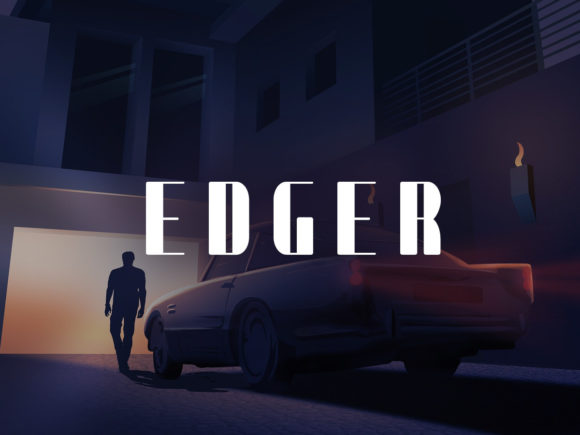
Welcome to the realm of typography, where letters dance and words come alive. Allow us to introduce you to Edger Font, a display font that's poised to revolutionize your creative endeavors. Crafted by the visionary designers at Design Stag, Edger Font is a masterpiece that demands attention and ignites imagination.
Edger Font: The Epitome of Modernity and Style for Heading in PPT
Picture this: a captivating PowerPoint presentation that leaves your audience spellbound. With Edger Font gracing your slides, you'll command attention from the very first letter. Its chunky and prominent letters exude an air of sophistication that instantly elevates your content. Whether you're presenting business strategies, academic research, or captivating travelogues, Edger Font ensures your message hits home with undeniable impact.
Unleash Your Creativity with Edger Font
Edger Font is more than just a font; it's an artistic playground where your creativity can run wild. Whether you're a seasoned designer or just starting your creative journey, Edger Font empowers you to transform your ideas into stunning visuals. Create logos that resonate, craft social media posts that captivate, and design marketing materials that leave a lasting impression. With Edger Font as your creative companion, the possibilities are limitless.
Make a Bold Statement with Edger Font
In a world saturated with visual noise, standing out requires boldness and originality. Edger Font arms you with the tools to make a statement that reverberates. Its striking presence breathes life into your designs, ensuring your message cuts through the clutter and leaves an indelible mark. Whether you're creating posters, flyers, or eye-catching social media graphics, Edger Font guarantees you'll leave a lasting impression.
Experience Typographic Excellence with Edger Font
Edger Font isn't just a font; it's an experience that elevates your designs to new heights. Its carefully crafted letters, meticulously designed curves, and unwavering attention to detail create a visual symphony that captivates the senses. With Edger Font, you'll discover a world of typographic excellence, where every character tells a story and every word carries weight. Prepare to embark on a creative journey like no other, where your designs transcend the ordinary and embrace the extraordinary.